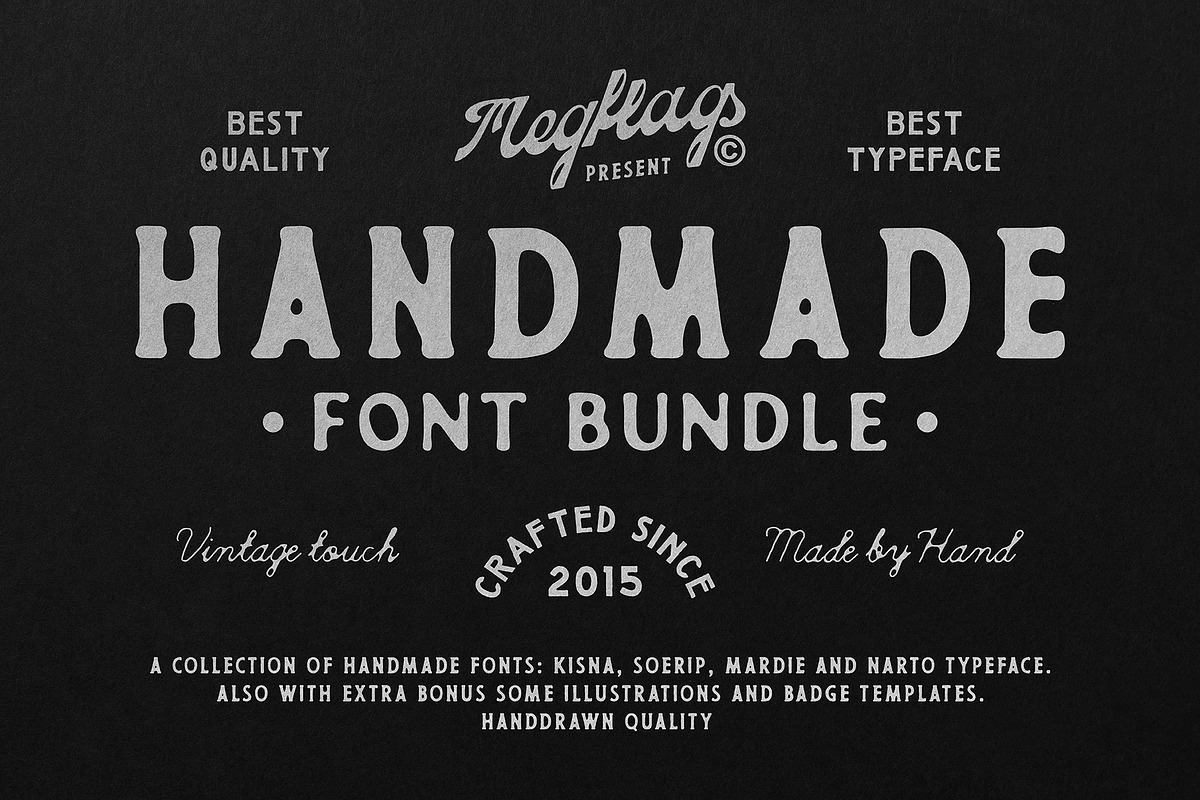
The Handmade Font Bundle + Extras Free Download is a charming collection of fonts designed to bring a unique, hand-crafted feel to your designs. Perfect for logos, branding, packaging, social media graphics, invitations, and more, this bundle offers a variety of playful, artistic typefaces that add warmth and personality to any project.
In addition to the fonts, the bundle also includes extras such as decorative elements, swashes, and design assets, making it a complete package for all your creative needs. Whether you're looking for elegant scripts or quirky hand-lettered fonts, this collection provides versatile choices for a wide range of design applications.
The bundle includes uppercase and lowercase letters, numbers, punctuation, and multilingual support, offering flexibility for various creative projects.